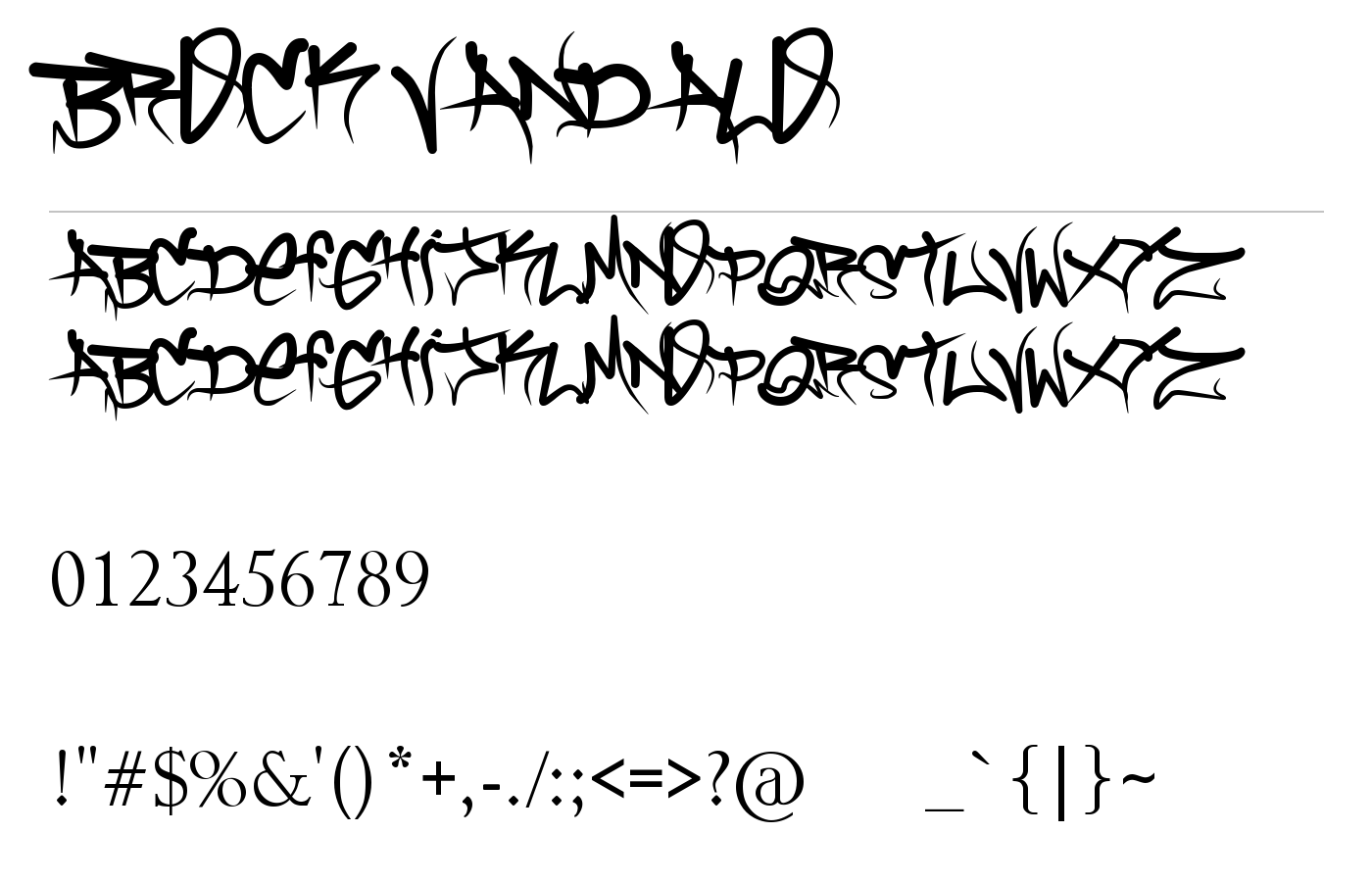
Brock Vandalo is a bold, graffiti-inspired script font featuring sharp, angular strokes and a dynamic, hand-drawn style that conveys a rebellious and urban vibe. Its highly stylized letterforms with irregular shapes make it ideal for edgy, creative branding, streetwear logos, and eye-catching posters where a raw, energetic aesthetic is desired. This font works best in display settings rather than body text due to its complex, artistic character.
Brock Vandalo Font
About Brock Vandalo Font